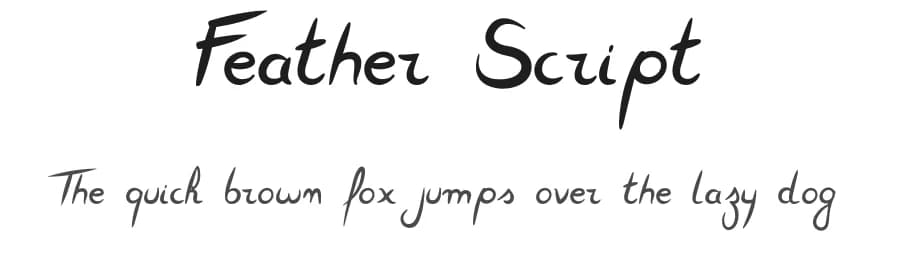
About Feather Script Font
Feather Script is a script & handwritten font designed by SvNProd. It includes 115 glyphs, a medium weight, OTF (CFF) format, and 122 languages. Feather Script is free to download; check the license details on this page before commercial use. Script & handwritten fonts like Feather Script work best for wedding invitations, greeting cards, signatures, and elegant branding.
Feather Script Font is a script font that shines as a display or heading face. Pair it with a clean sans-serif or serif font for body text β the contrast creates a clear hierarchy while the two styles stay balanced and easy to read.
Feather Script Font
by SvNProd
Feather Script Font is a script handwritten typeface by SvNProd, ideal for logos, invitations, branding, and creative projects.